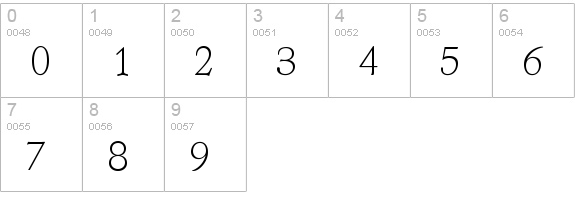
Stempel Schneidler Std Light is a refined, elegant variant in the Stempel typeface family \xE2\x80\x94 well suited to elegant body text, refined sub-headings, and luxury branding.
Stempel Schneidler Std Light is a timeless and elegant typeface that exudes sophistication and class. Its slender lines and delicate curves create a sense of refinement and grace, making it perfect for projects that require a touch of sophistication. The light weight of this font gives it a delicate and airy quality, making it ideal for use in titles, headings, and other design elements where a subtle and stylish touch is needed. What sets Stempel Schneidler Std Light apart is not just its beauty, but also the fact that it is available for free download at FontsMarket.com. This means that designers and creatives can easily access this stunning font without any cost, allowing them to enhance their projects with a touch of elegance and style without breaking the bank. Whether you're working on a branding project, a wedding invitation, or a magazine layout, Stempel Schneidler Std Light is sure to elevate your designs and make them stand out. Download this exquisite font for free today and add a touch of sophistication to your creative projects.